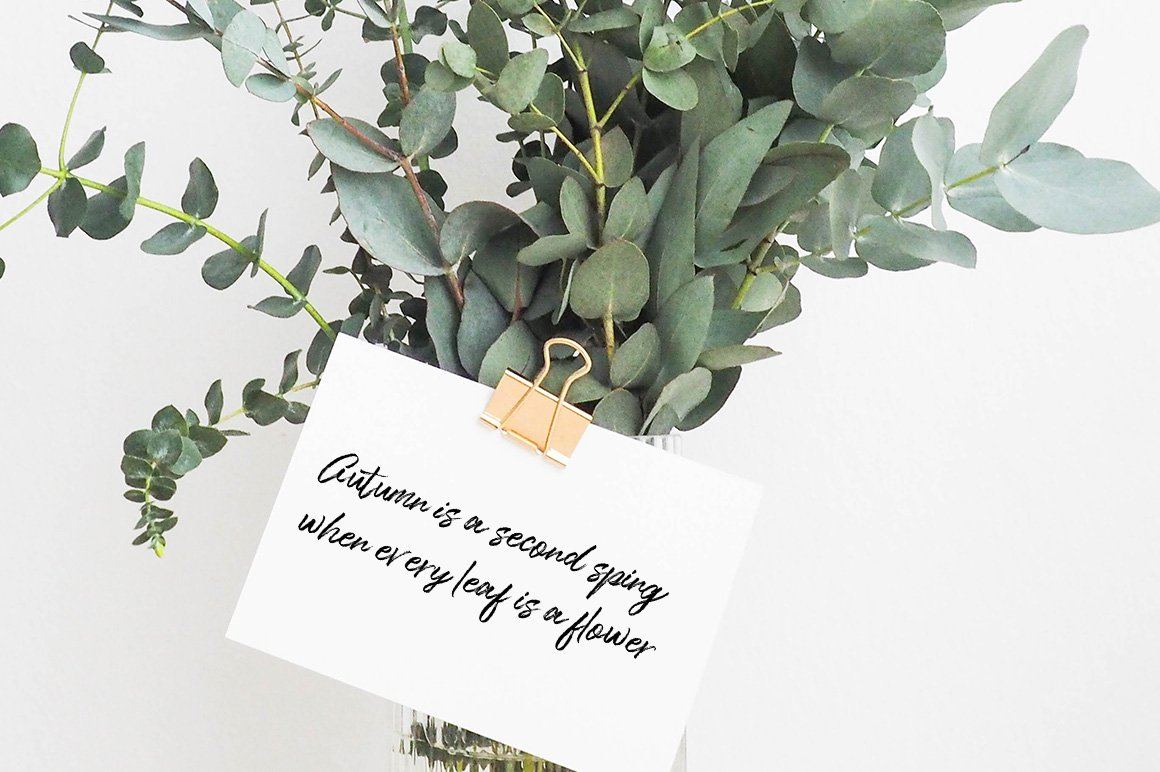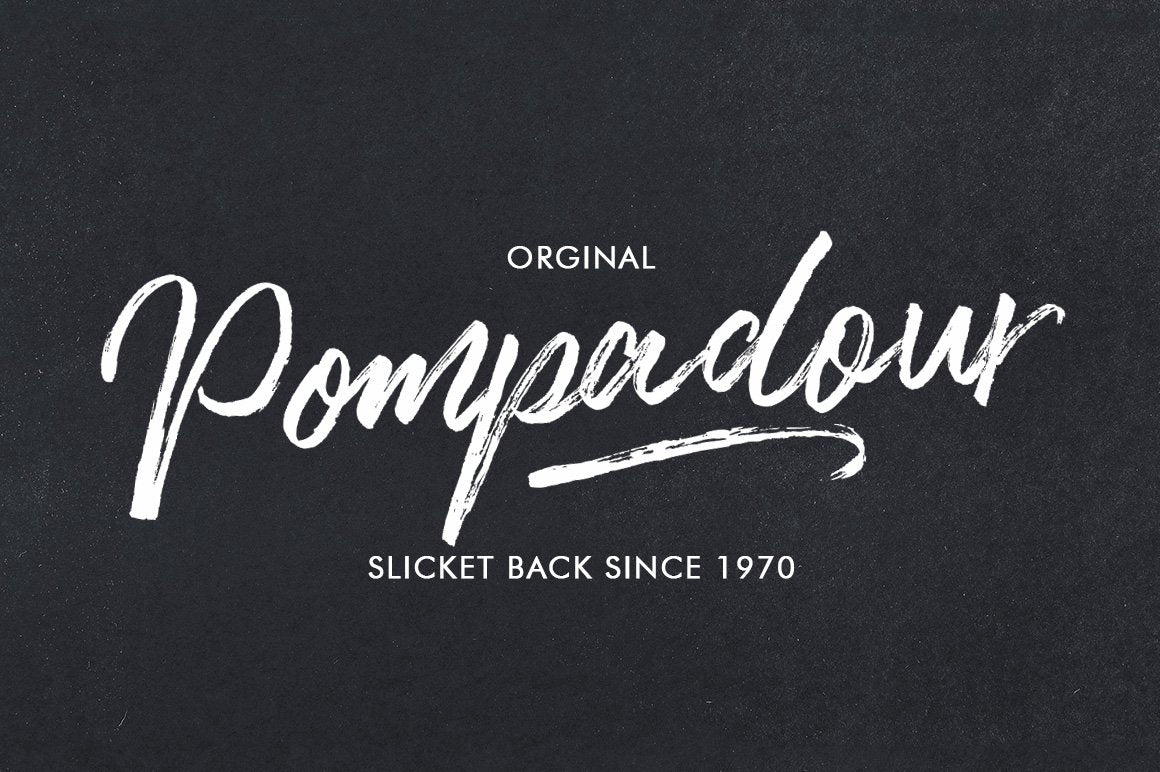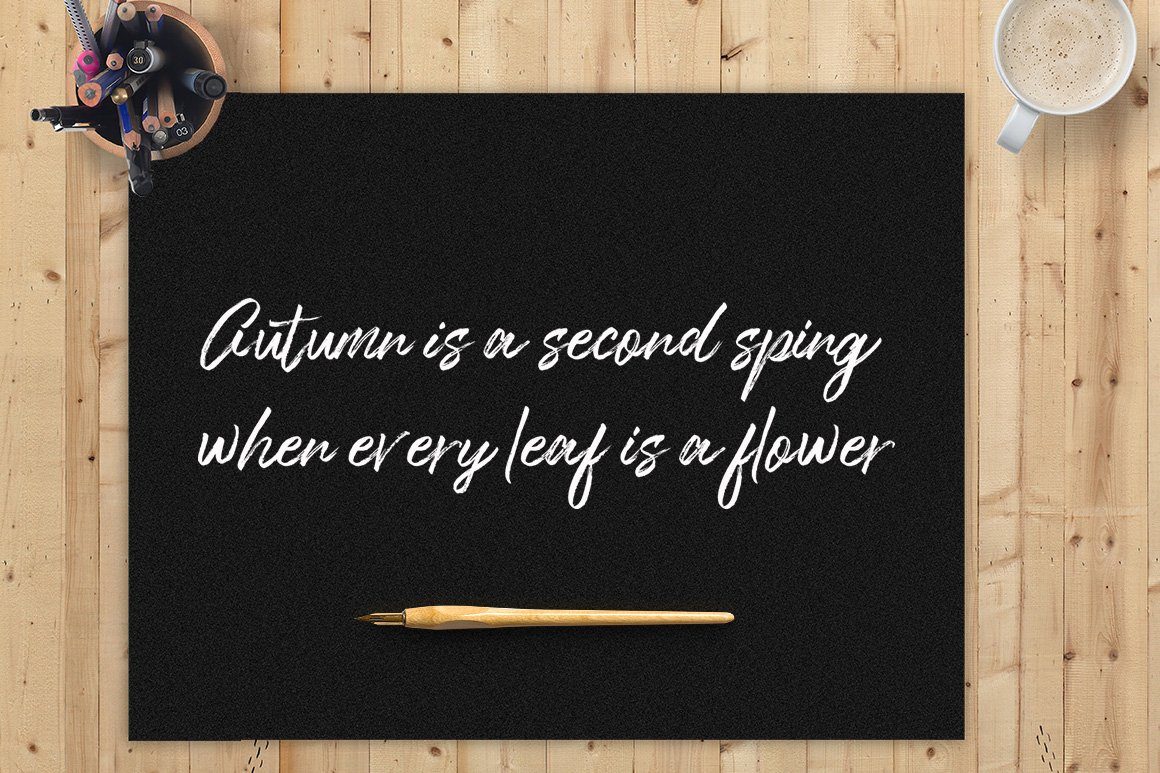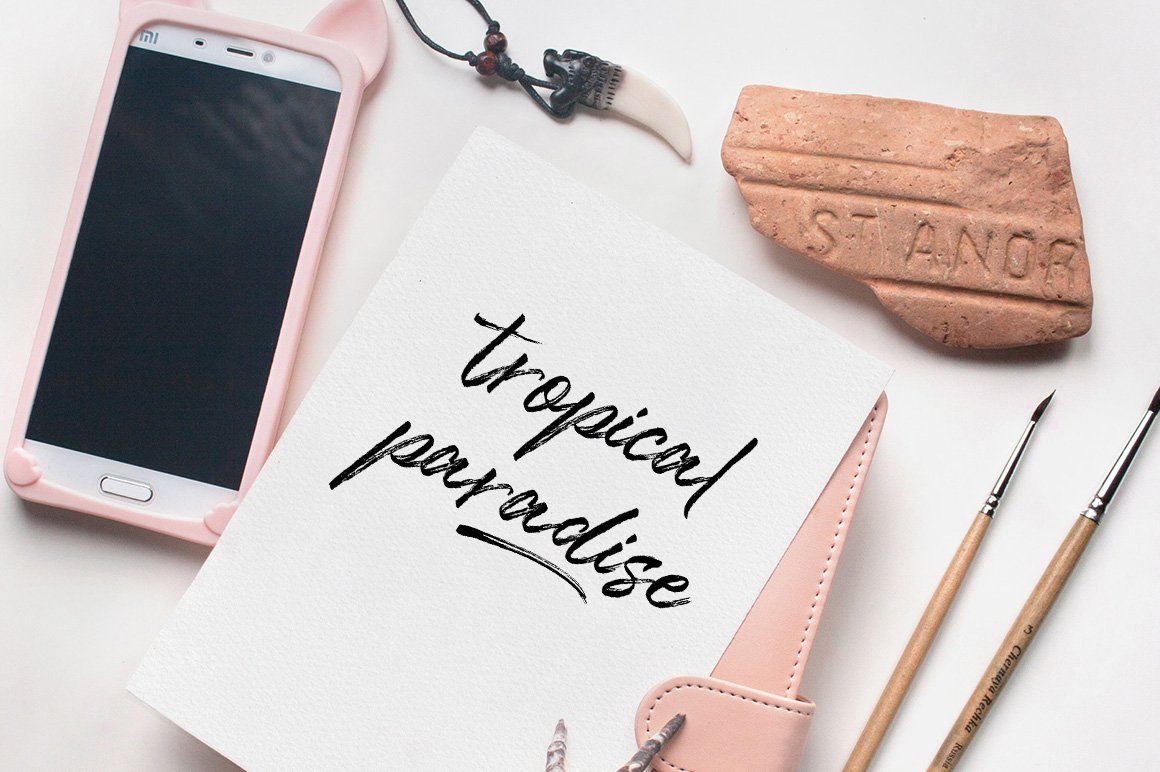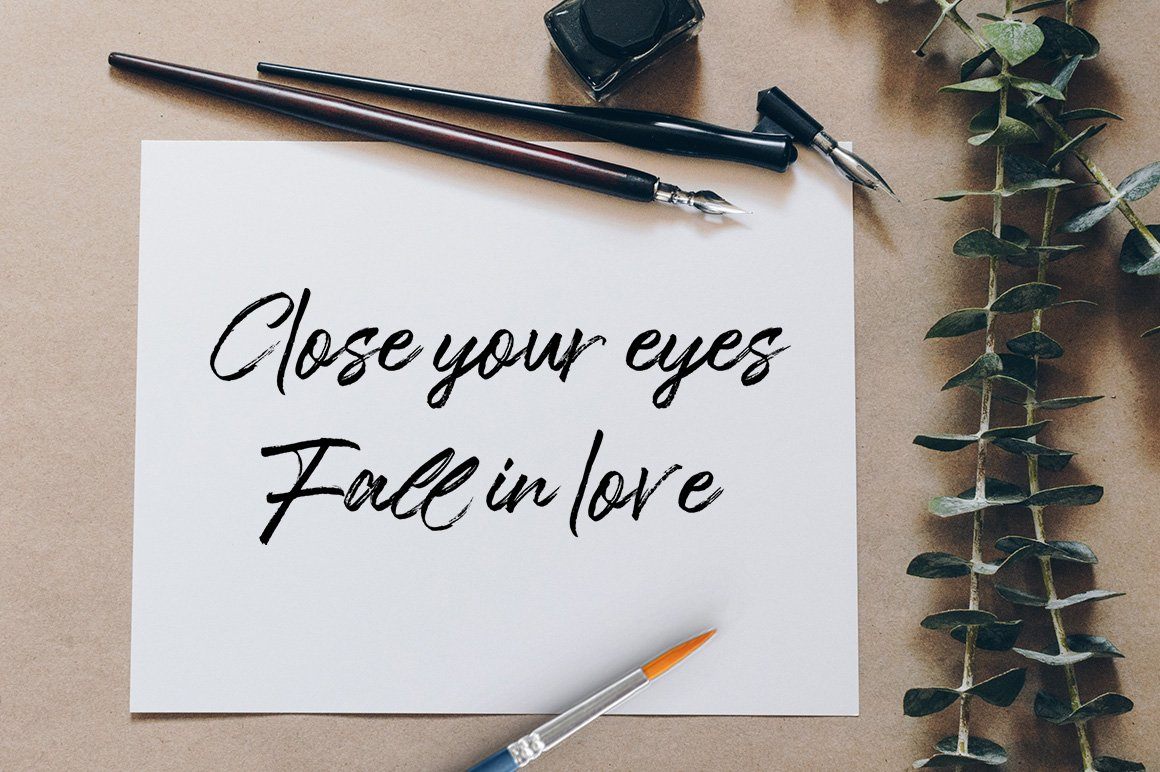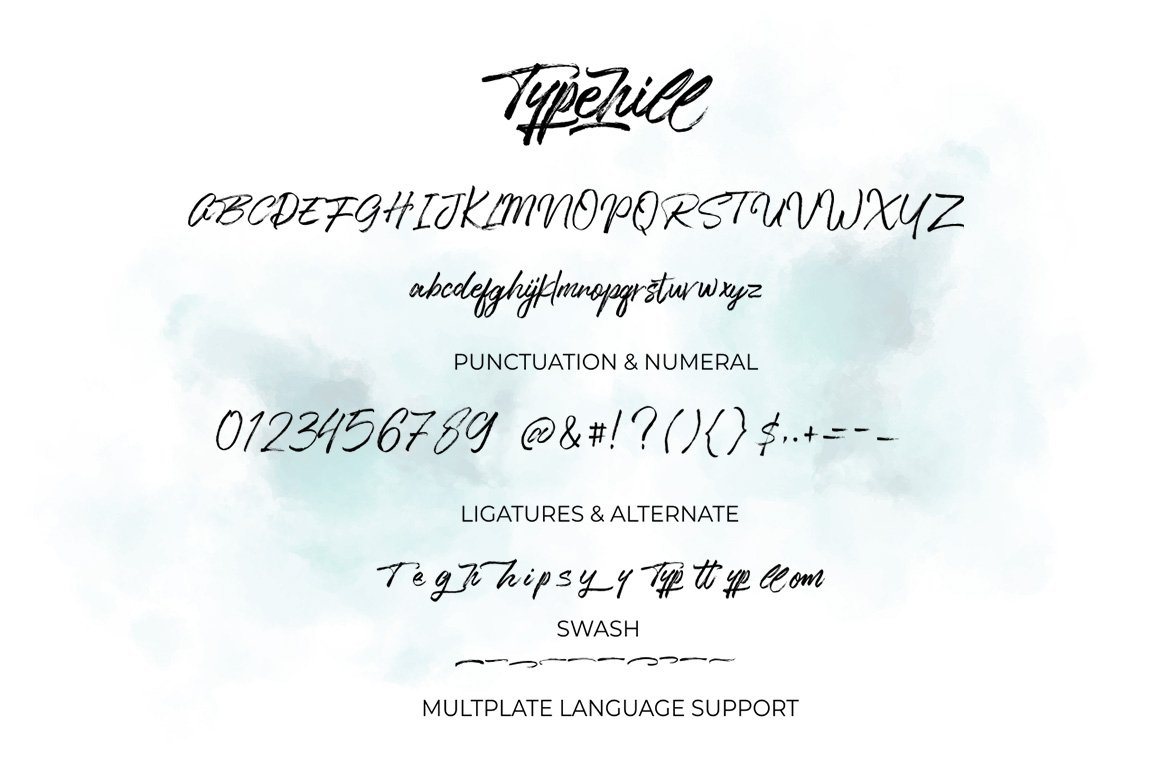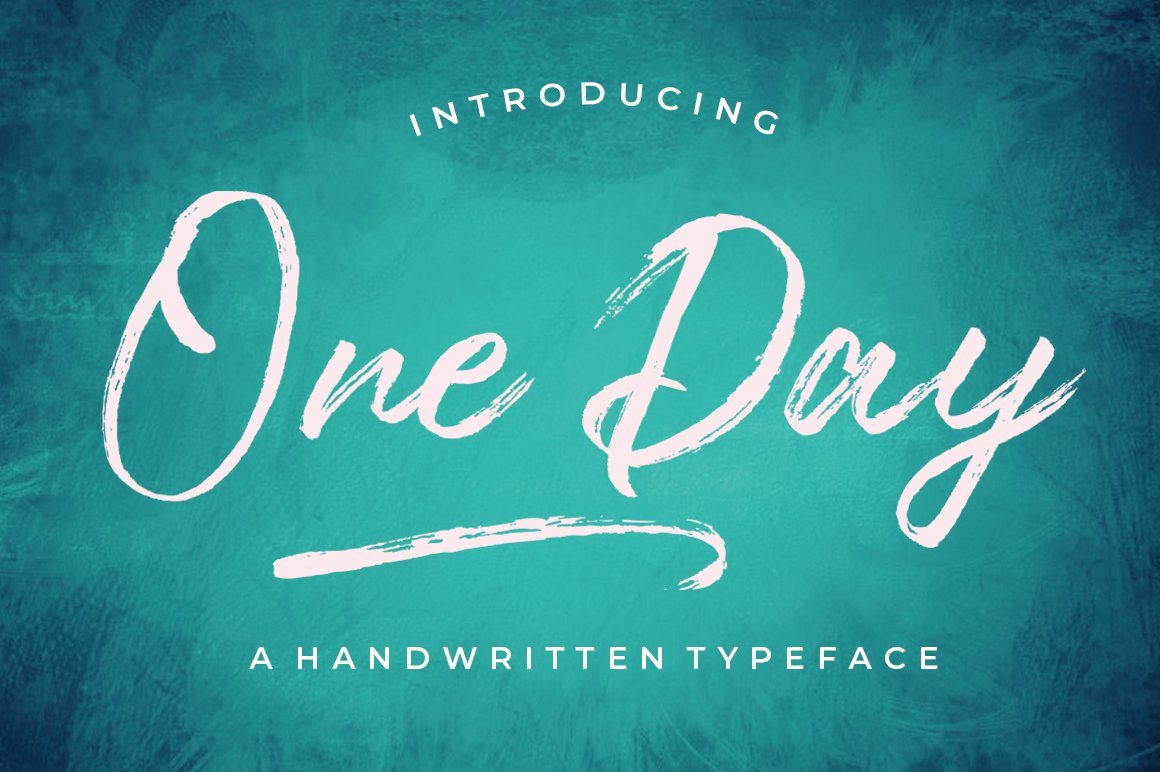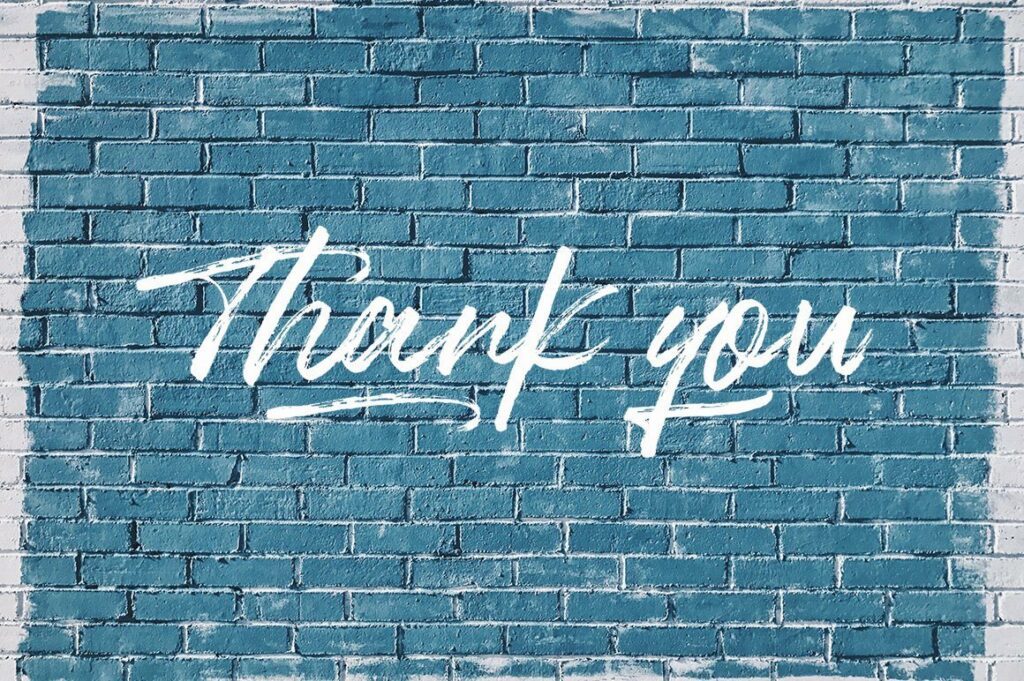
One Day
About One Day
One Day  is a new modern script font with an irregular baseline. a contemporary approach to design, handmade natural, suitable for use in title design such as clothing, invitations, book titles, stationery designs, quotes, branding, logos, greeting cards, T-shirts, packaging designs, posters, and more. Complete with uppercase and lowercase letters, as well as multi-language support, numbers, punctuation. also provide some ligatures and swash. Fonts Included : (otf, ttf) Thanks so much for looking and please let me know if you have any questions.